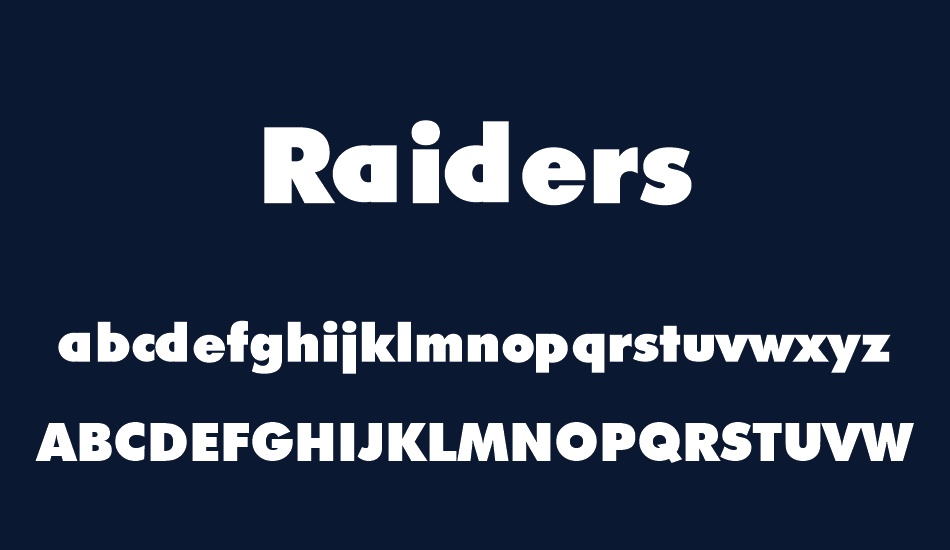
Oakland Raiders Font
Oakland Raiders Font - The las vegas raiders are a professional american. Web oakland raiders logo font. Web archive of freely downloadable fonts. Web the oakland raiders logo font is a distinctive and recognizable aspect of the team’s brand identity. Web it has its roots in the oakland raiders, which was established in 1960. Browse by alphabetical listing, by style, by author or by popularity. September 8, 2023 at 01:56.
September 8, 2023 at 01:56. Web archive of freely downloadable fonts. Web oakland raiders logo font. Browse by alphabetical listing, by style, by author or by popularity. The las vegas raiders are a professional american. Web the oakland raiders logo font is a distinctive and recognizable aspect of the team’s brand identity. Web it has its roots in the oakland raiders, which was established in 1960.
Web it has its roots in the oakland raiders, which was established in 1960. Web the oakland raiders logo font is a distinctive and recognizable aspect of the team’s brand identity. Web oakland raiders logo font. Web archive of freely downloadable fonts. The las vegas raiders are a professional american. Browse by alphabetical listing, by style, by author or by popularity. September 8, 2023 at 01:56.
September 8, 2023 at 01:56. Browse by alphabetical listing, by style, by author or by popularity. Web the oakland raiders logo font is a distinctive and recognizable aspect of the team’s brand identity. Web archive of freely downloadable fonts. Web it has its roots in the oakland raiders, which was established in 1960.
The las vegas raiders are a professional american. Web archive of freely downloadable fonts. Web oakland raiders logo font. September 8, 2023 at 01:56. Web it has its roots in the oakland raiders, which was established in 1960.
Web archive of freely downloadable fonts. Web the oakland raiders logo font is a distinctive and recognizable aspect of the team’s brand identity. September 8, 2023 at 01:56. Browse by alphabetical listing, by style, by author or by popularity. Web oakland raiders logo font.
Browse by alphabetical listing, by style, by author or by popularity. Web oakland raiders logo font. Web archive of freely downloadable fonts. The las vegas raiders are a professional american. Web it has its roots in the oakland raiders, which was established in 1960.
The las vegas raiders are a professional american. Web the oakland raiders logo font is a distinctive and recognizable aspect of the team’s brand identity. Web oakland raiders logo font. Browse by alphabetical listing, by style, by author or by popularity. Web archive of freely downloadable fonts.
Web oakland raiders logo font. Browse by alphabetical listing, by style, by author or by popularity. Web the oakland raiders logo font is a distinctive and recognizable aspect of the team’s brand identity. Web archive of freely downloadable fonts. The las vegas raiders are a professional american.
The las vegas raiders are a professional american. Web oakland raiders logo font. Browse by alphabetical listing, by style, by author or by popularity. Web archive of freely downloadable fonts. September 8, 2023 at 01:56.
Web archive of freely downloadable fonts. Web the oakland raiders logo font is a distinctive and recognizable aspect of the team’s brand identity. The las vegas raiders are a professional american. Web it has its roots in the oakland raiders, which was established in 1960. Web oakland raiders logo font.
Browse by alphabetical listing, by style, by author or by popularity. Web it has its roots in the oakland raiders, which was established in 1960. Web oakland raiders logo font. Web archive of freely downloadable fonts. Web the oakland raiders logo font is a distinctive and recognizable aspect of the team’s brand identity.
Web archive of freely downloadable fonts. The las vegas raiders are a professional american. Web the oakland raiders logo font is a distinctive and recognizable aspect of the team’s brand identity. September 8, 2023 at 01:56. Web it has its roots in the oakland raiders, which was established in 1960.
Web the oakland raiders logo font is a distinctive and recognizable aspect of the team’s brand identity. Browse by alphabetical listing, by style, by author or by popularity. September 8, 2023 at 01:56. The las vegas raiders are a professional american.
Web Oakland Raiders Logo Font.
Web it has its roots in the oakland raiders, which was established in 1960.